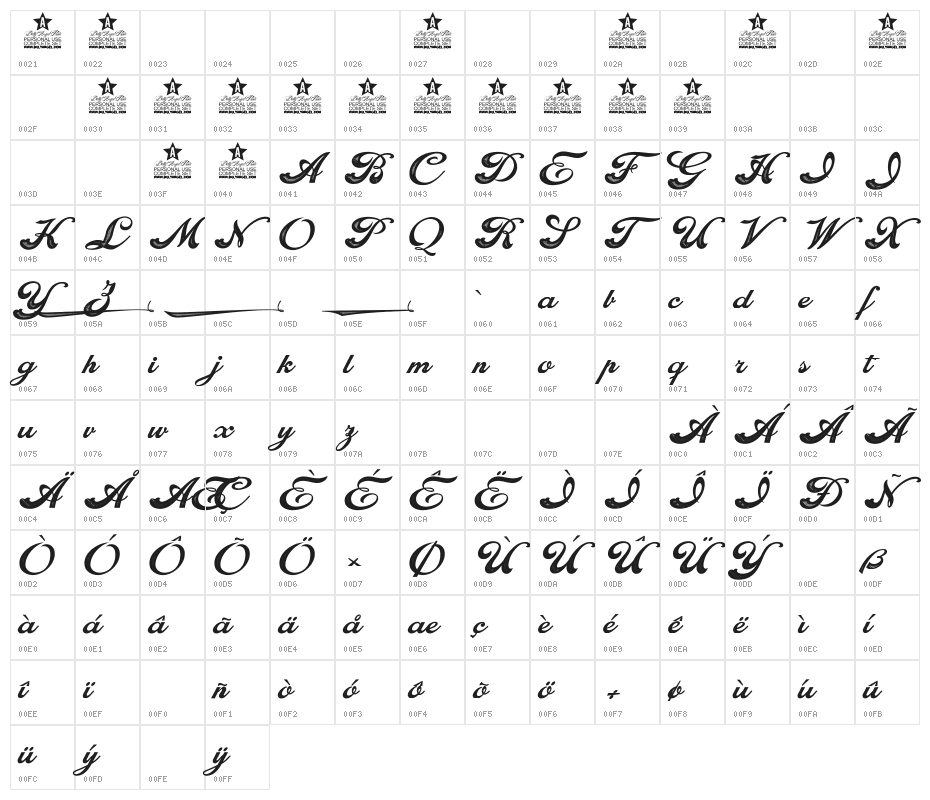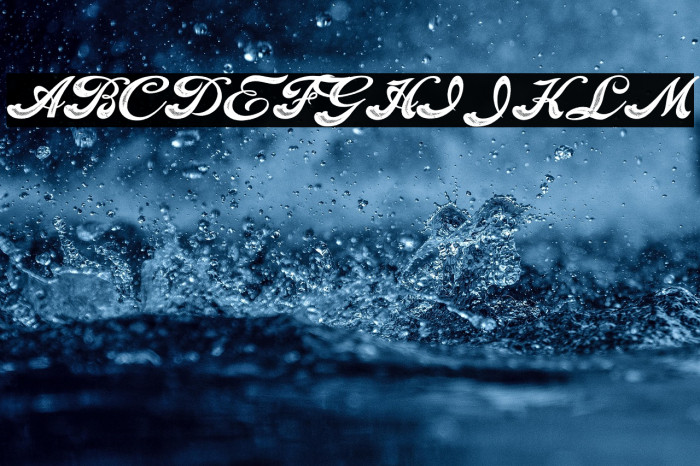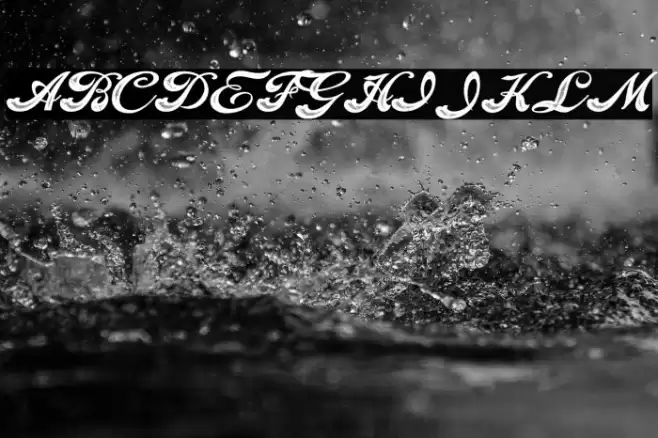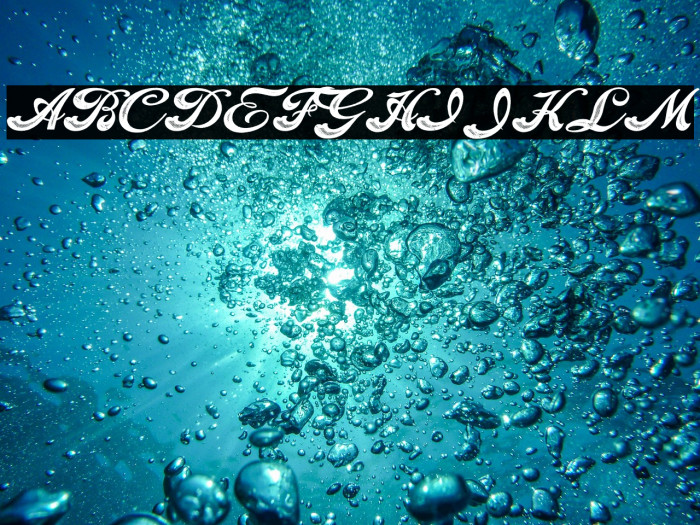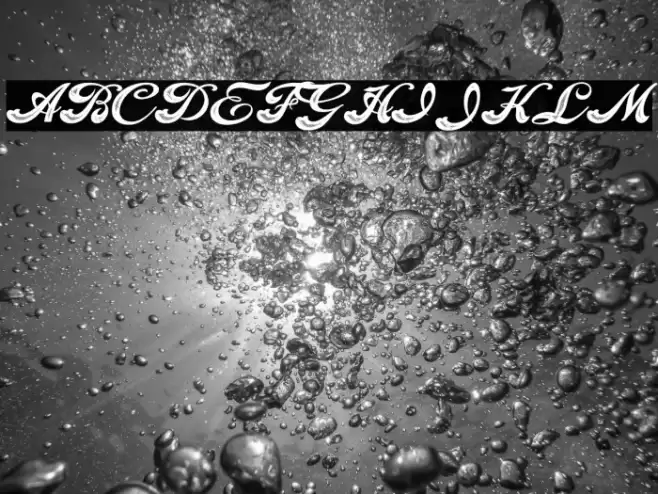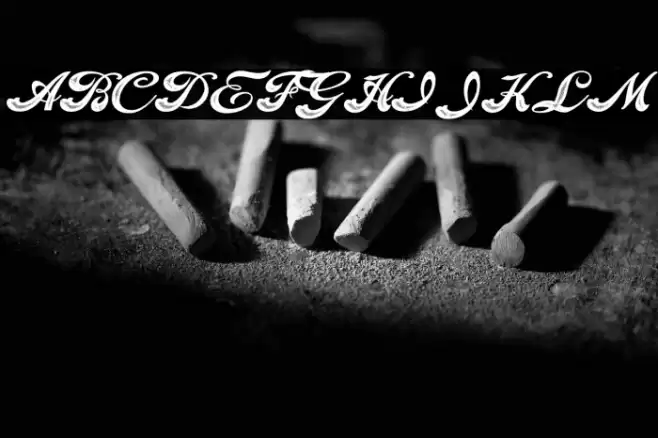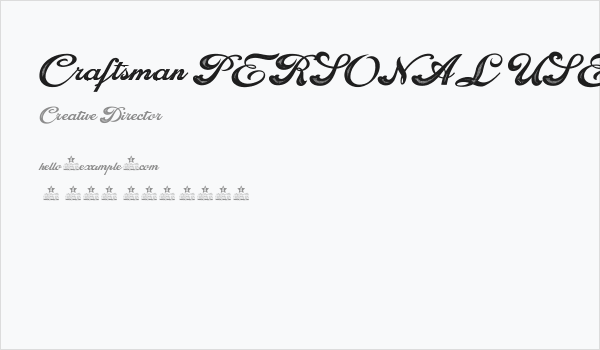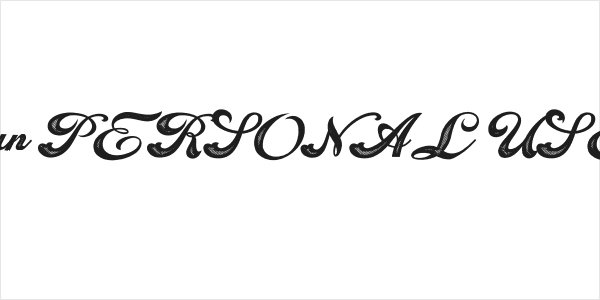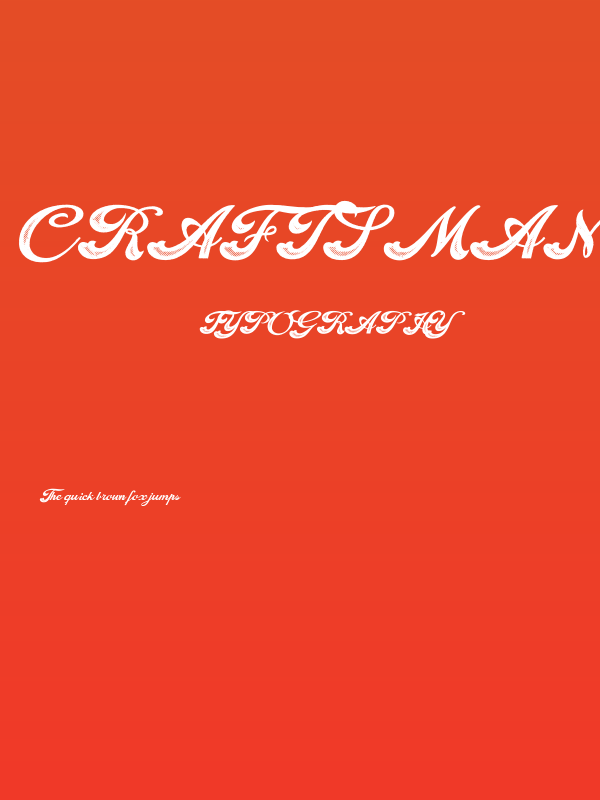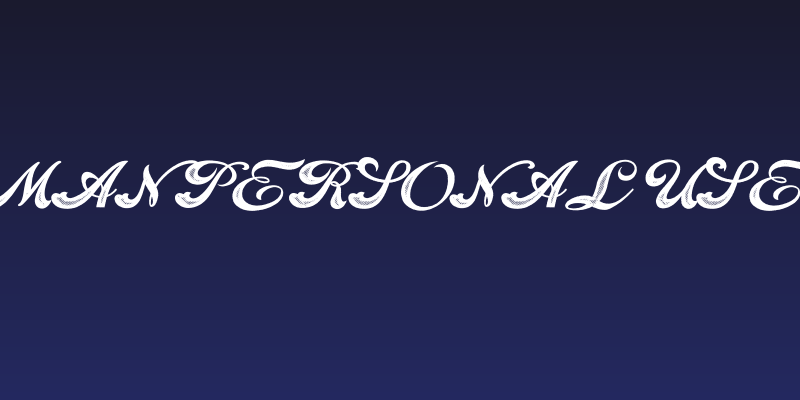
Craftsman PERSONAL USE Italic Font
Craftsman PERSONAL USE Italic Description
This elegant script font features a flowing, cursive style with a distinct italic slant. The characters are intricately designed, showcasing a blend of classic calligraphy with a modern twist. Each letter is connected, creating a seamless and fluid appearance that is both sophisticated and artistic. The uppercase letters are ornate, with decorative swashes that add a touch of flair, while the lowercase letters maintain a consistent rhythm and balance. The font's overall aesthetic is reminiscent of traditional handwriting, making it ideal for projects that require a personal and elegant touch.